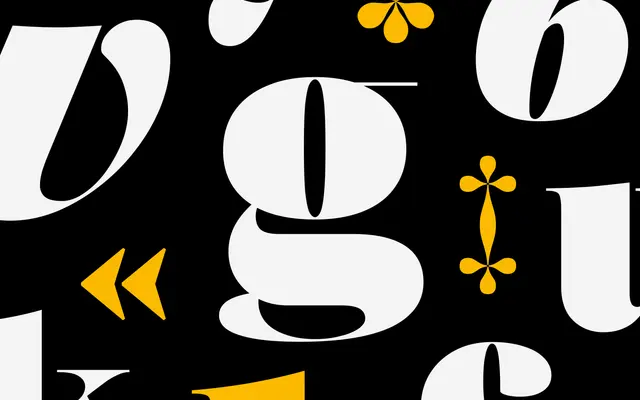
Marble Arch
Dalton Maag · Carlos De Toro
Marble Arch specimen from Dalton Maag
A high-contrast modern serif by Carlos De Toro with Caption, Text, SubHead, Headline and Poster optical sizes, named for the London landmark.
A modern serif by Carlos De Toro with vertical stress, high contrast and teardrop terminals. The variable font runs Weight from Hairline to Black with true italics, and the Optical Size axis covers Caption, Text, SubHead, Headline and Poster cuts so a single system can serve everything from footnotes to billboards. Sits at home on luxury, fashion and editorial work that wants the calm grandeur of a London serif.
Dalton Maag describe Marble Arch as a serif that embodies the grandeur and timeless elegance of its iconic London landmark namesake, with Weight, Italic and Optical Size axes spanning Caption, Text, SubHead, Headline and Poster sizes.